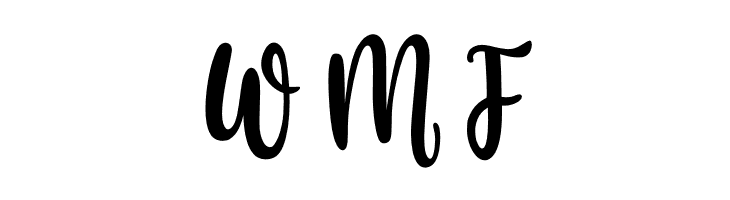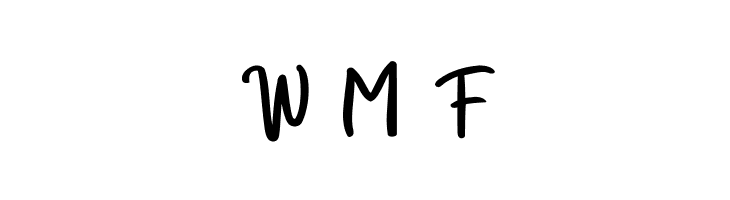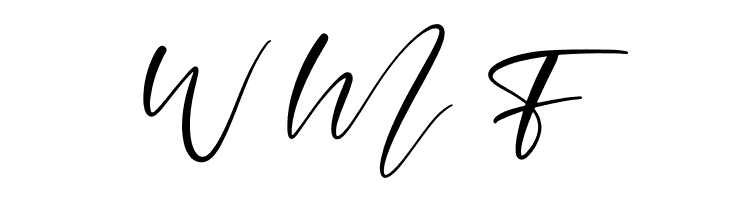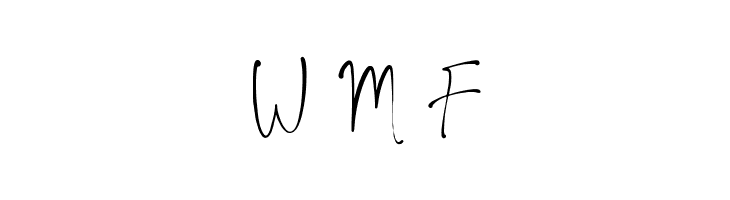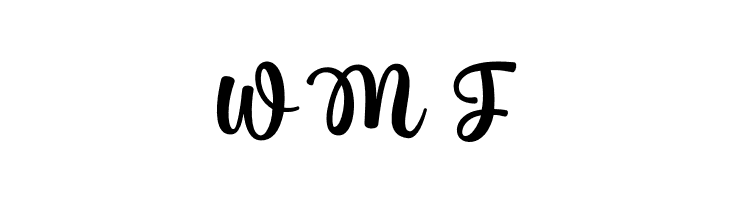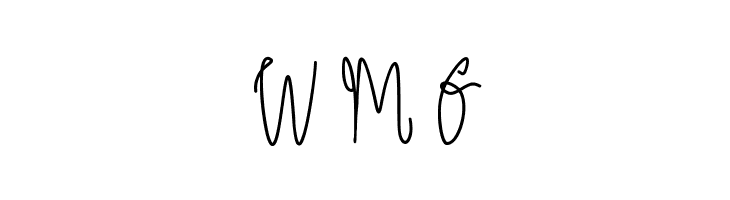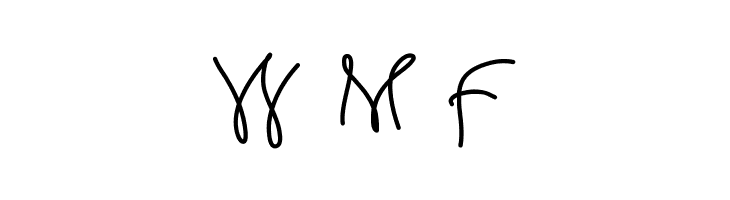
A graceful and elegant cursive script font with fluid connections and artistic flourishes.
A playful, elegant script font with a handwritten feel and bold strokes.
A playful, casual handwritten font with smooth, flowing strokes.
An elegant, flowing script font with graceful, cursive letterforms.
A whimsical, handwritten font with playful curves and varying stroke widths.
A flowing, cursive font with interconnected letters and a playful elegance.
A playful, handwritten script font with flowing, interconnected letters.
A playful, rounded font with smooth curves and uniform stroke width.
A playful, handwritten font with a casual and whimsical style.
A bold, expressive handwritten font with dynamic strokes and playful character.